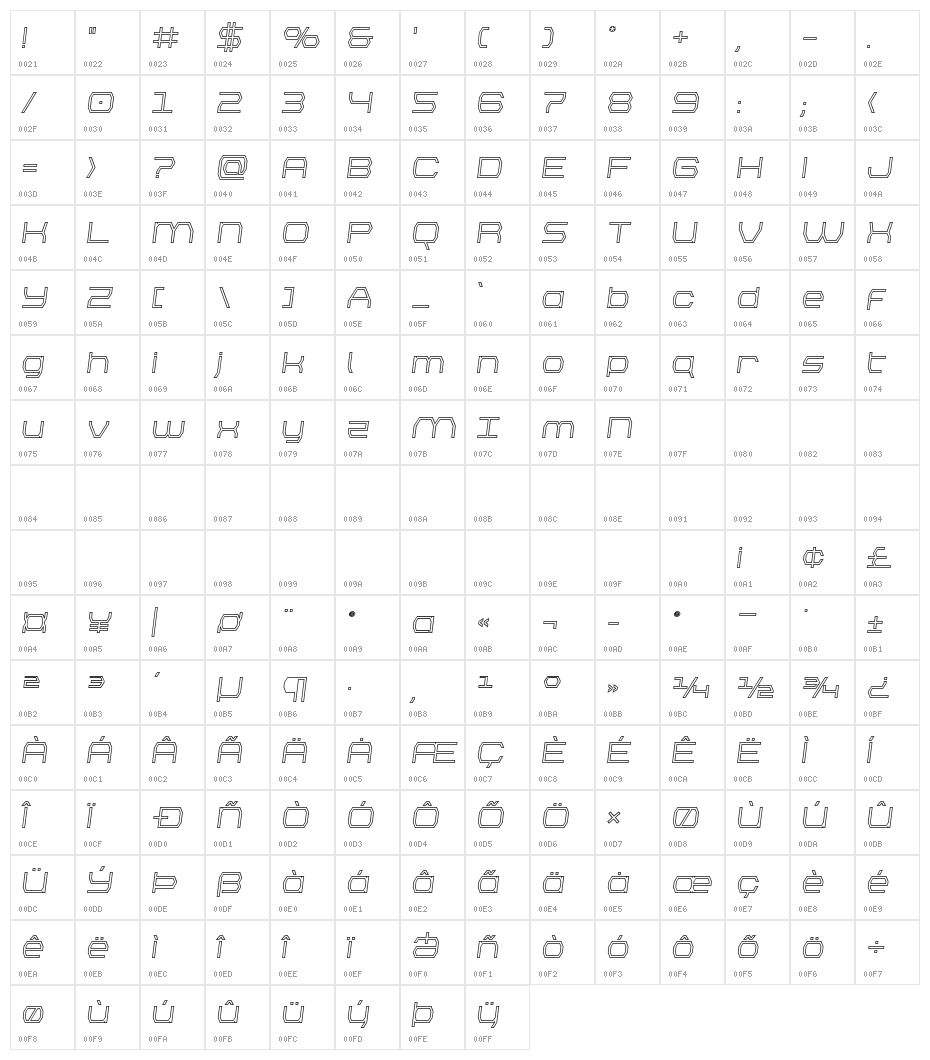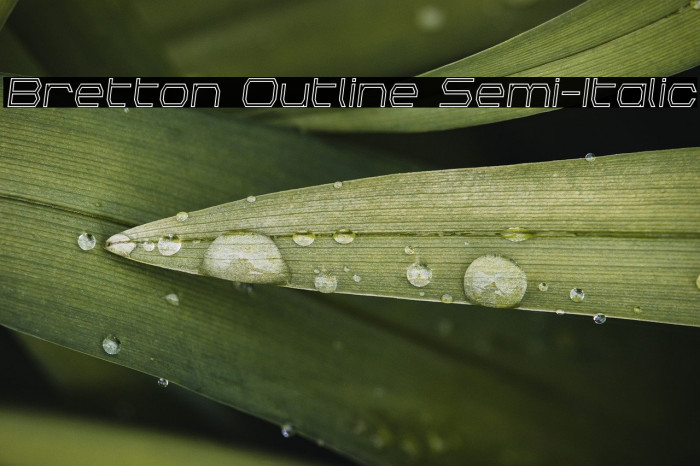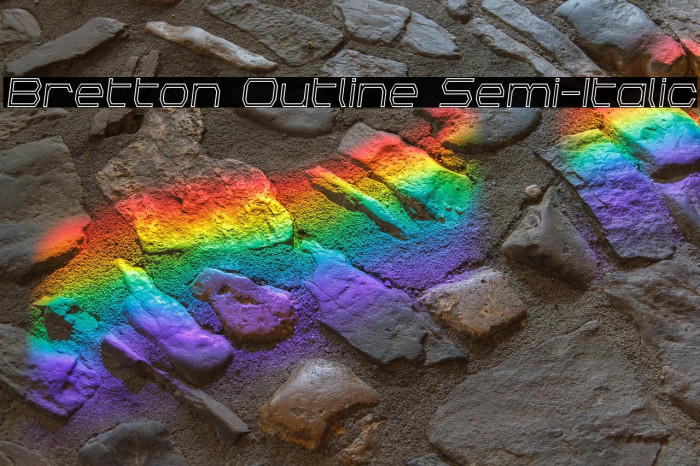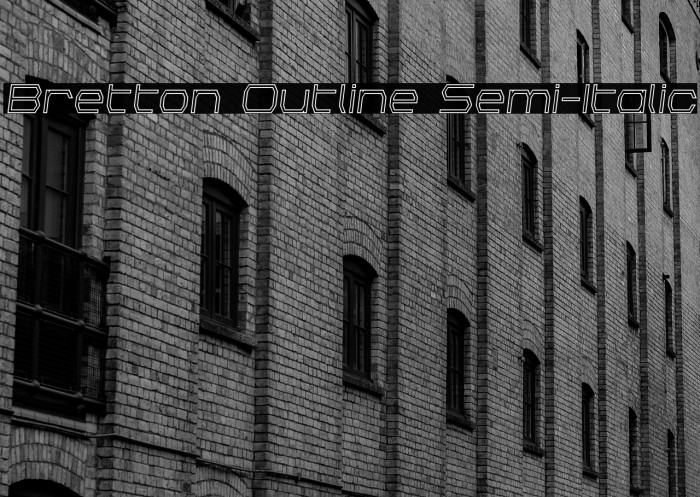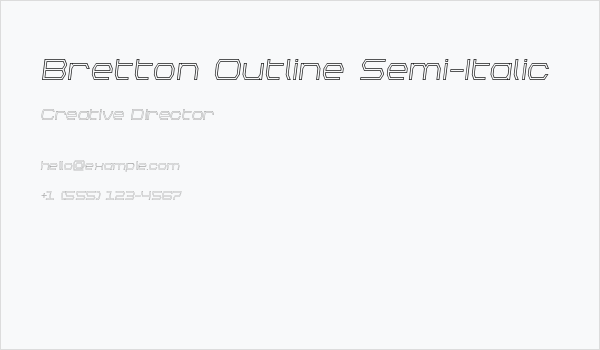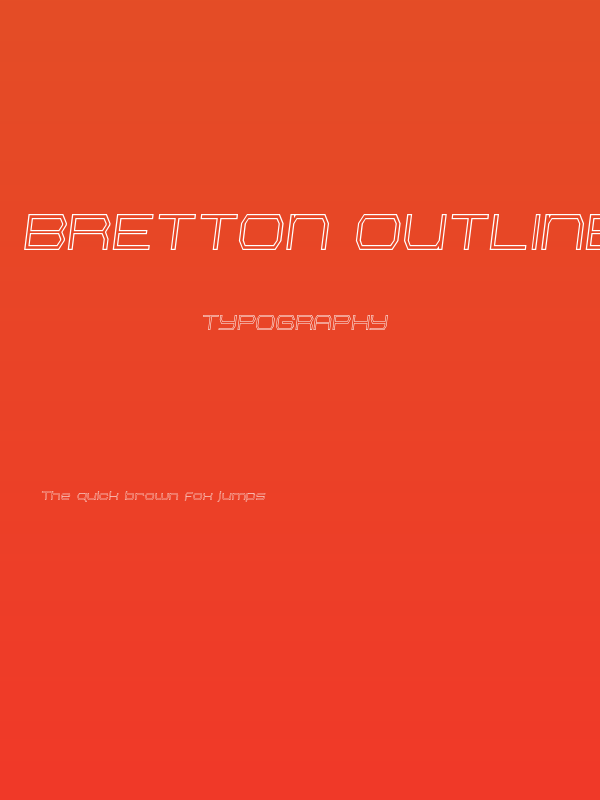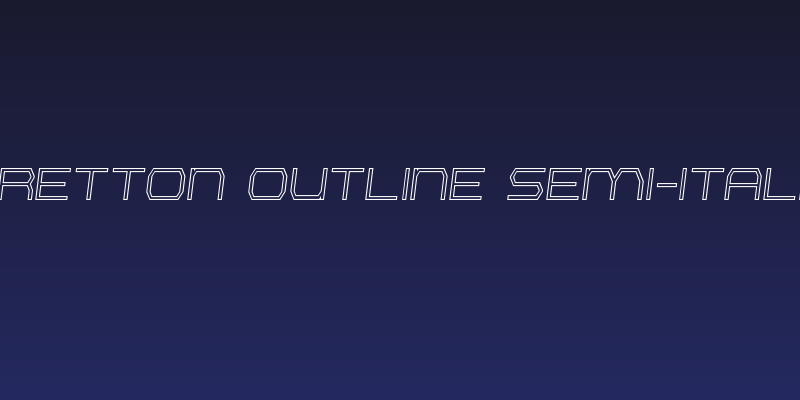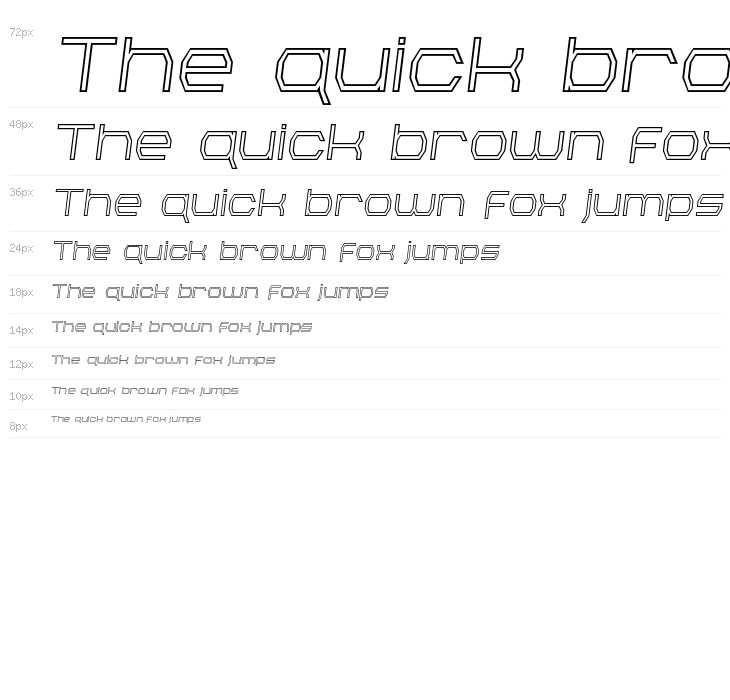
Bretton Outline Semi-Italic Font
Bretton Outline Semi-Italic Description
This font features a distinct outline style with a semi-italic slant, giving it a dynamic and modern appearance. The characters are constructed with a geometric precision, emphasizing angular lines and sharp corners. The uppercase and lowercase letters maintain a consistent height, contributing to a uniform look. The numerals and special characters are designed to match the overall aesthetic, ensuring cohesion across all glyphs. The font's outline nature makes it ideal for overlaying on images or backgrounds, where the interior space can interact with the underlying design elements.